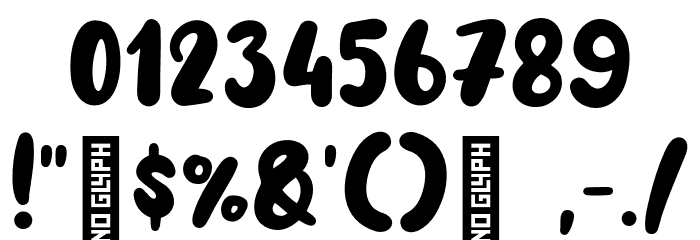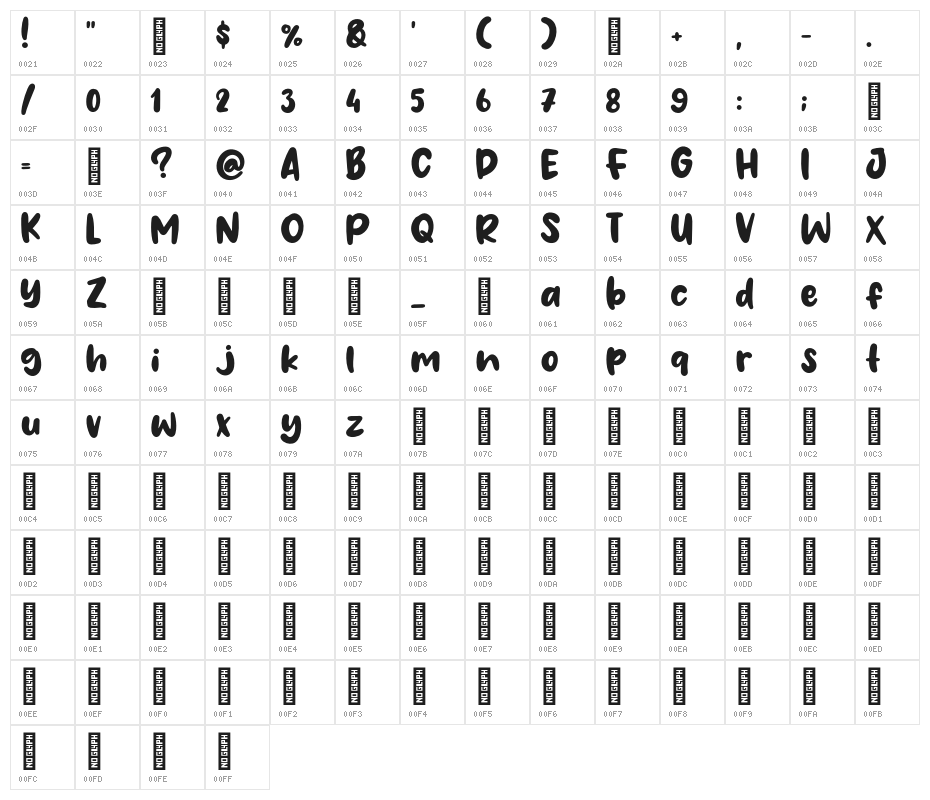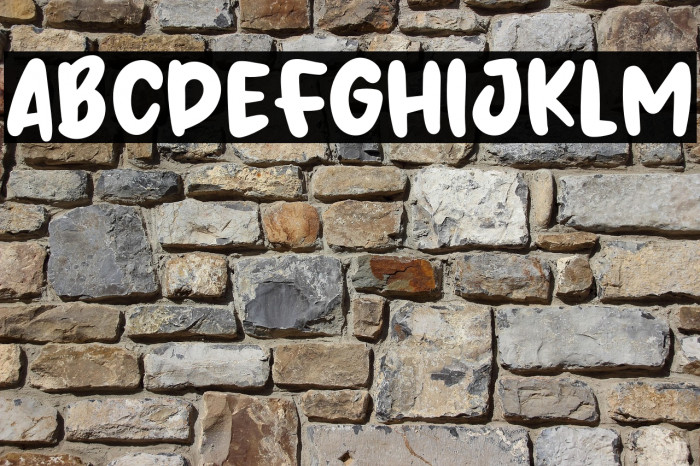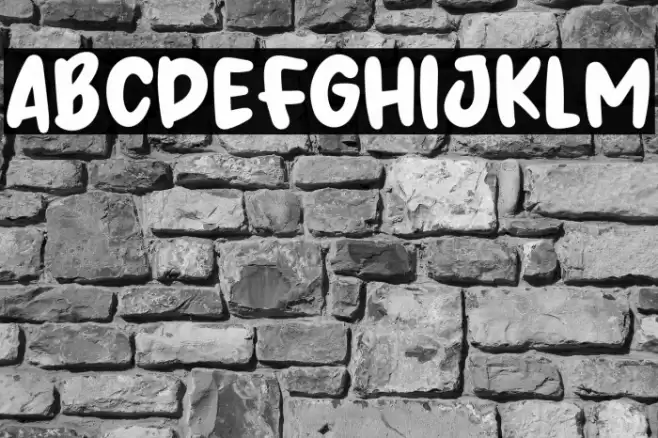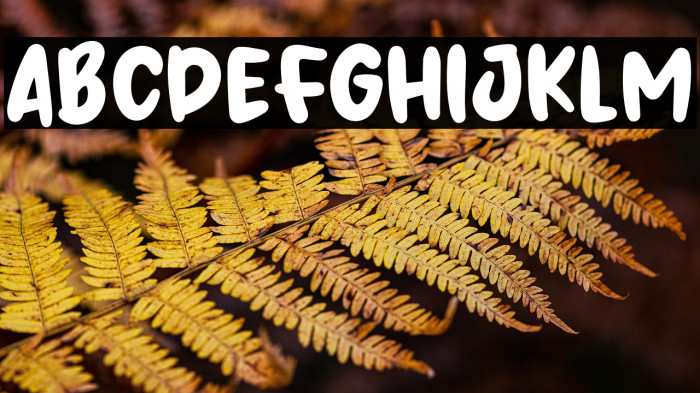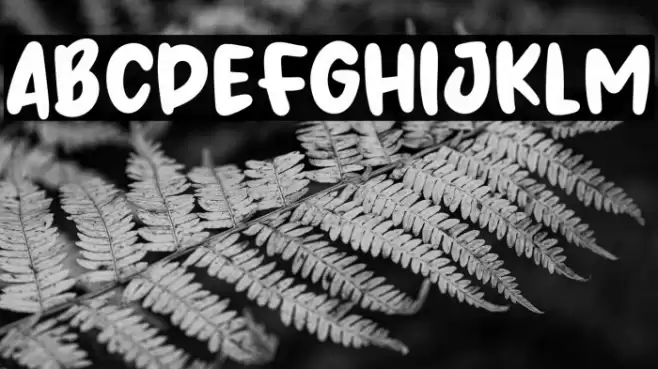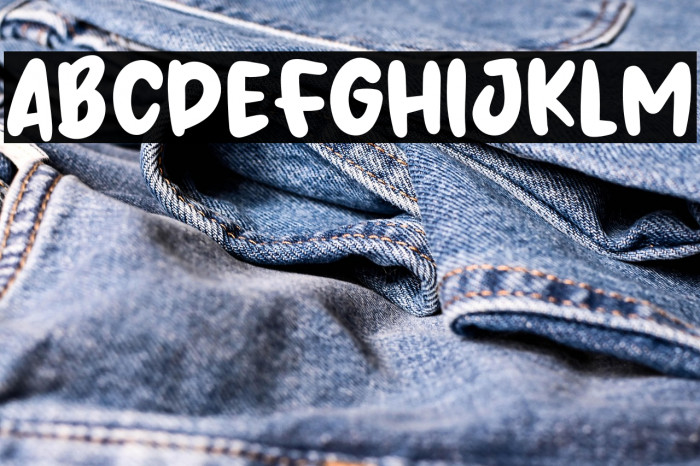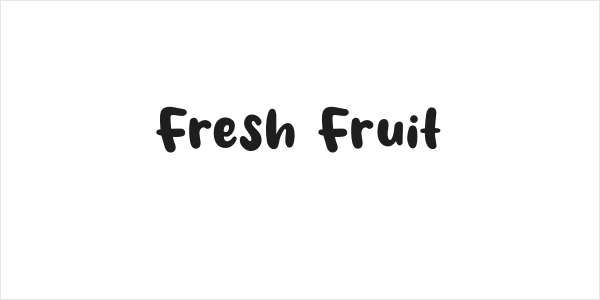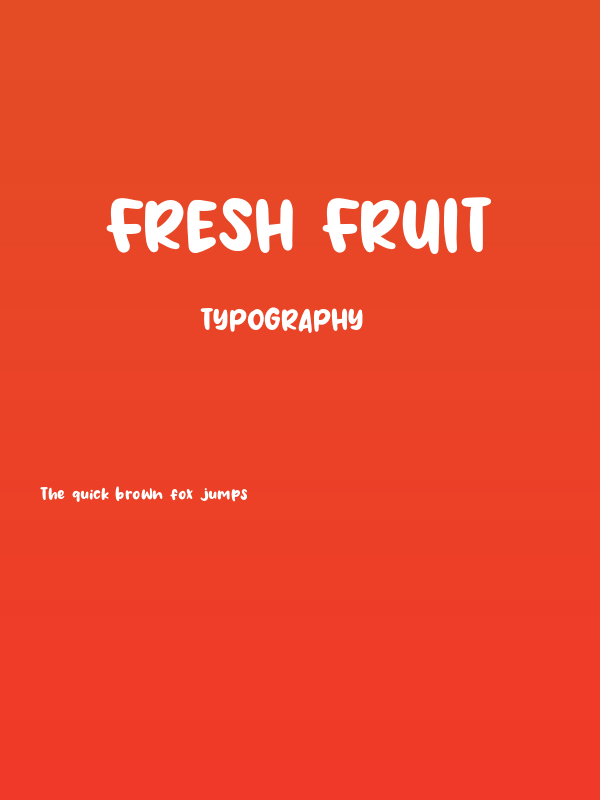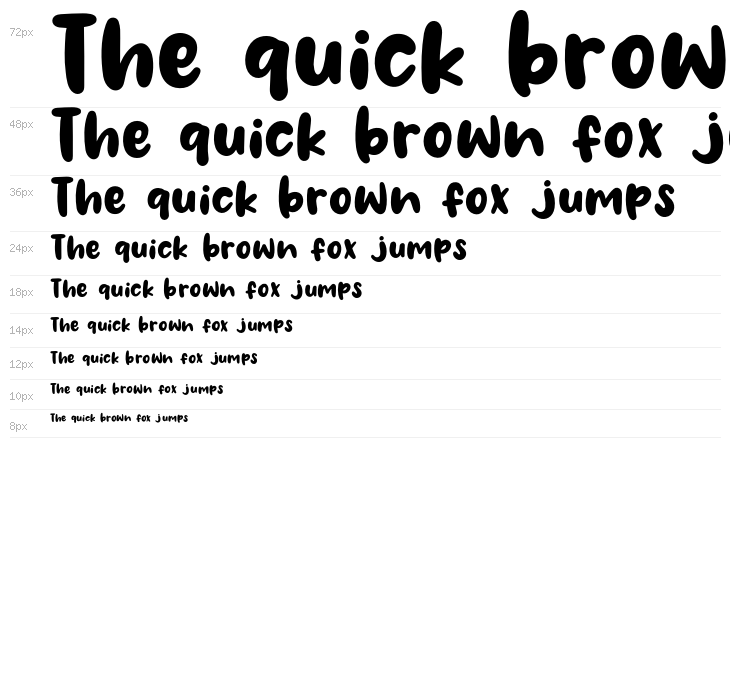
Fresh Fruit Font
Fresh Fruit Description
This playful and bold font features rounded, thick strokes that give it a friendly and approachable appearance. The characters are slightly irregular, adding a hand-drawn feel that enhances its charm. The uppercase and lowercase letters maintain a consistent style, with smooth curves and a slightly exaggerated width that makes each letter stand out. The numbers and special characters follow the same design principles, ensuring a cohesive look across all glyphs. This font's unique style makes it perfect for projects that require a touch of whimsy and creativity.